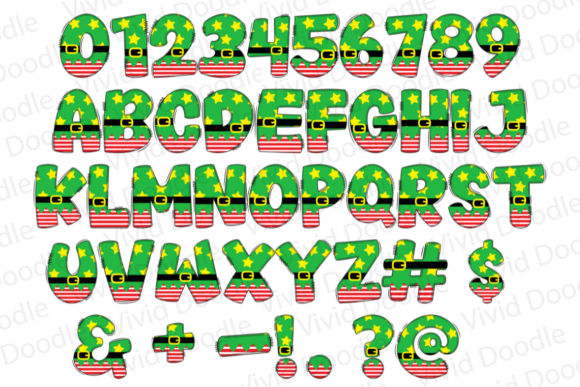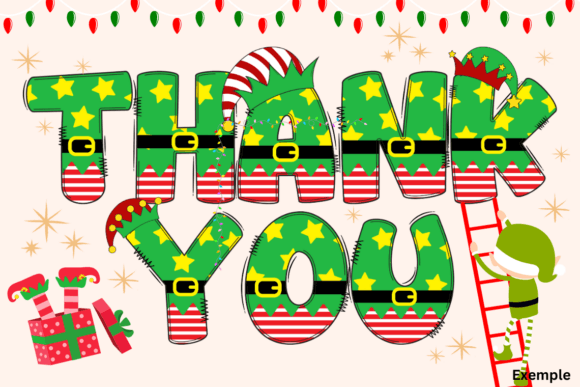
Introducing Funny Christmas Elf Font: Add a Dash of Holiday Cheer to Your Designs!
Are you looking for a font that embodies the playful and mischievous spirit of Christmas elves? Look no further than Funny Christmas Elf Font! This whimsical and cheerful typeface is perfect for spreading holiday joy in a fun and lighthearted way. With its hand-drawn, quirky letters and festive doodles, Funny Christmas Elf Font is sure to add a dose of holiday humor and charm to your designs.
Whether you’re creating Christmas cards, party invitations, posters, or school projects, Funny Christmas Elf Font is the ideal choice. This font is designed to bring a smile to people’s faces and make your festive creations stand out from the crowd. Imagine adding a touch of holiday magic to your designs with a font that features letters that look like they were drawn by a mischievous Christmas elf. With Funny Christmas Elf Font, you can create designs that are both fun and festive.
Funny Christmas Elf Font is perfect for a wide range of design projects, including:
- Holiday decorations: Add a touch of whimsy to your holiday decorations with Funny Christmas Elf Font. Use it to create festive signs, banners, and garlands that will make your home or office feel merry and bright.
- Creative art: Let your creativity shine with Funny Christmas Elf Font. Use it to create unique and playful artwork that showcases your personality and style.
- Graphic design: Add a dash of holiday cheer to your graphic designs with Funny Christmas Elf Font. Use it to create festive logos, brochures, and flyers that will make your clients smile.
Tips for Using Funny Christmas Elf Font
Here are a few tips for using Funny Christmas Elf Font in your designs:
- Experiment with different colors: Funny Christmas Elf Font is a color font, so don’t be afraid to experiment with different colors and combinations.
- Mix and match: Combine Funny Christmas Elf Font with other fonts to create a unique and playful look.
- Use it sparingly: While Funny Christmas Elf Font is perfect for adding a touch of holiday cheer to your designs, it’s best to use it sparingly. Use it as an accent font to add a pop of personality to your designs.